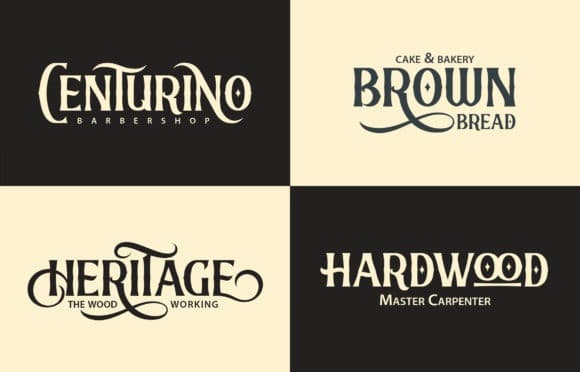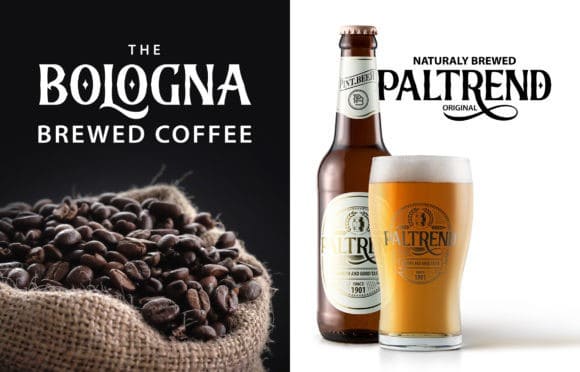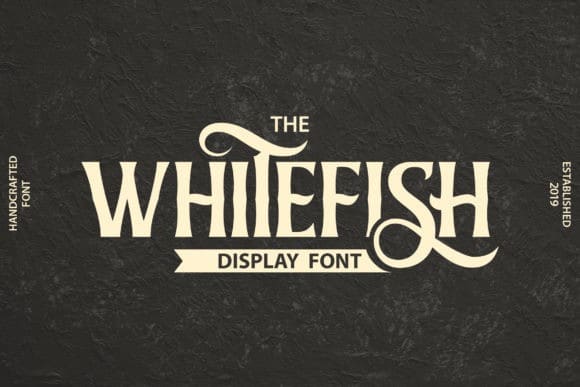
Whitefish Display Font
Whitefish Display Font is a display typeface which consists of uppercase letters. This font is designed to be simpler, which was inspired by several social media posts and letter books. Made from font designer named AZetype. It’s an elegant and vintage-looking display font featuring stunning swashes. Use it to make any design project stand out.